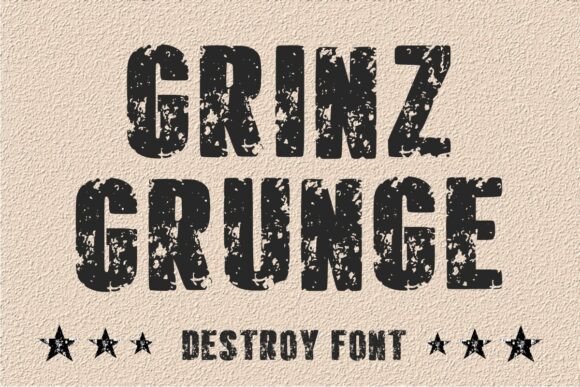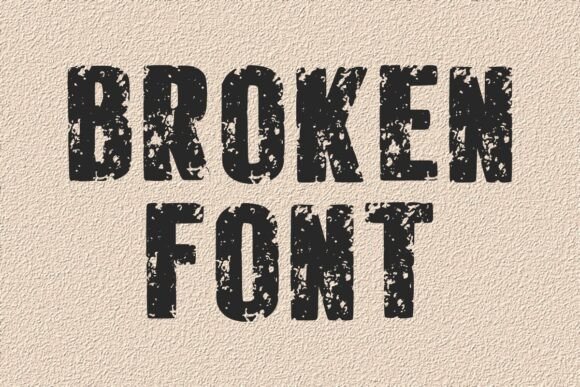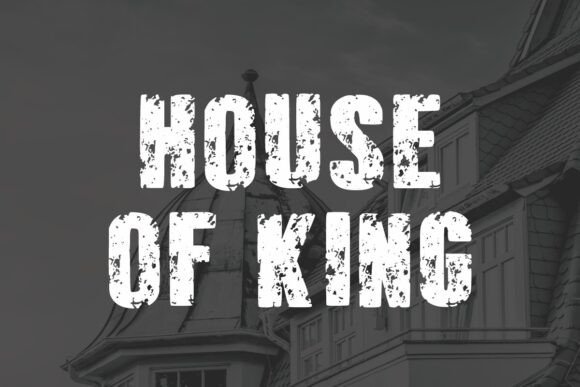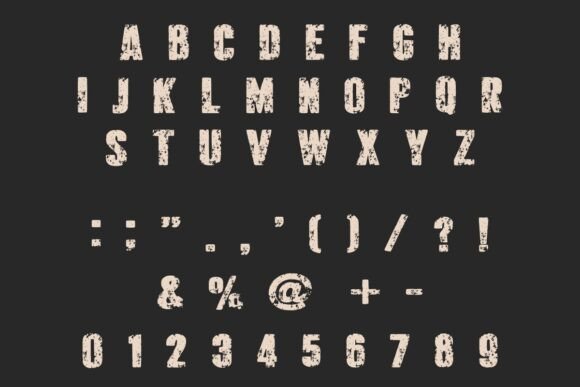
Grinz Grunge Font
About the Grinz Grunge Font
Presenting Grinz Grunge Font, a unique and stylish typeface that will make your work stand out. Grinz Grunge is a grunge and rough bold display font perfect for various projects such as blog posts, logos, branding, ads, invitations, greeting cards, planners, photo albums, decorations, and much more.
Grinz Grunge excels as a headline font for posters, branding materials targeting a younger demographic, and packaging for products with a rebellious or edgy aesthetic. Its strong character also makes it suitable for short, impactful statements in advertisements or social media graphics. However, its rough texture and bold weight make it unsuitable for body text or UI elements where readability is paramount. Avoid using it for long paragraphs or small sizes.
Pairing Grinz Grunge with a clean sans-serif like Open Sans for body text creates a balanced contrast, allowing the grunge font to command attention while maintaining legibility. For a more sophisticated feel, consider pairing it with a classic serif like Garamond for secondary text or brand elements. A geometric sans-serif such as Montserrat could also work well, offering a modern counterpoint to the font’s raw energy.
Grinz Grunge projects a bold, rebellious, and slightly raw personality. It is ideal for brands aiming for a youthful, edgy, or unconventional image. Its grungy texture adds a sense of authenticity and grit, making it perfect for projects that want to convey a non-conformist attitude.
Grinz Grunge Font Usage Examples
Grinz Grunge Font Example